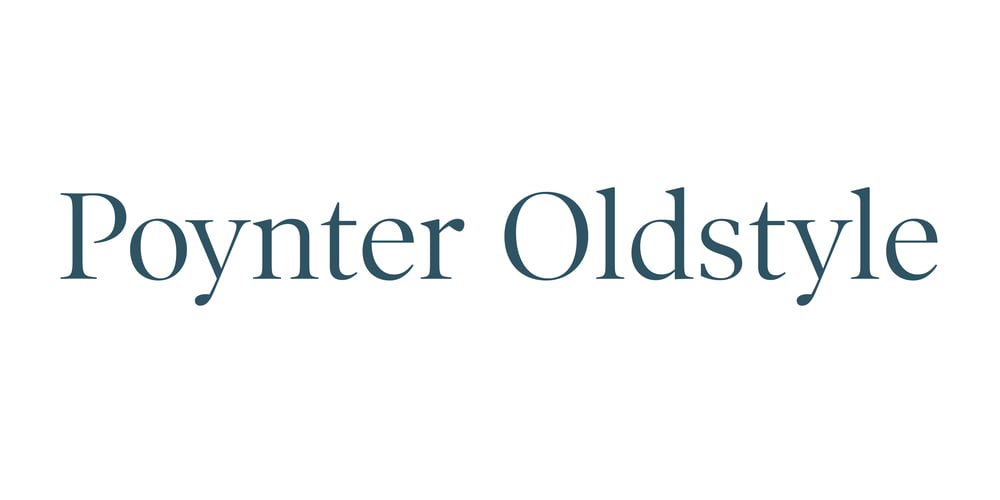
Poynter Old Style Font Family was designed by David Berlow, Tobias Frere-Jones and published by Font Bureau. Poynter Old Style contains 15 styles and family package options. In the 1670s, Christopher Plantin was the largest publisher of his day. Hendrik van den Keere cut for him an astounding series of romans. As Stanley Morison once observed, such types adopted features of Flemish blackletter to strengthen elegant French romans. Large on the body, strong in color, economical in fit, widely (if anonymously) distributed, they established effective standards for all that followed; FB 1997–2000